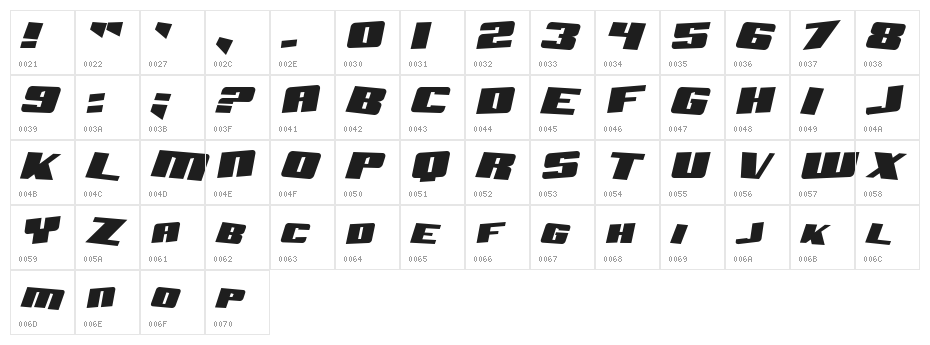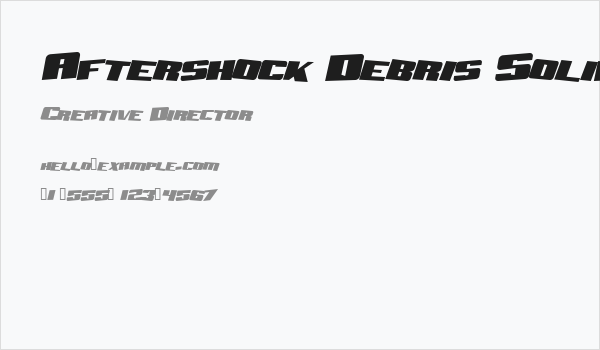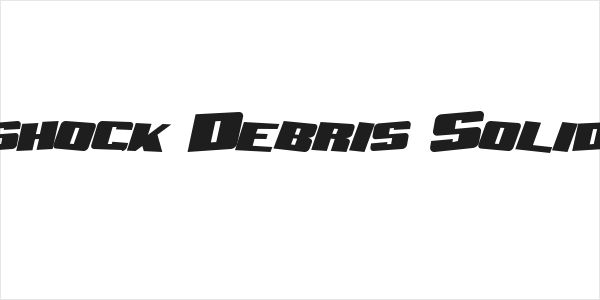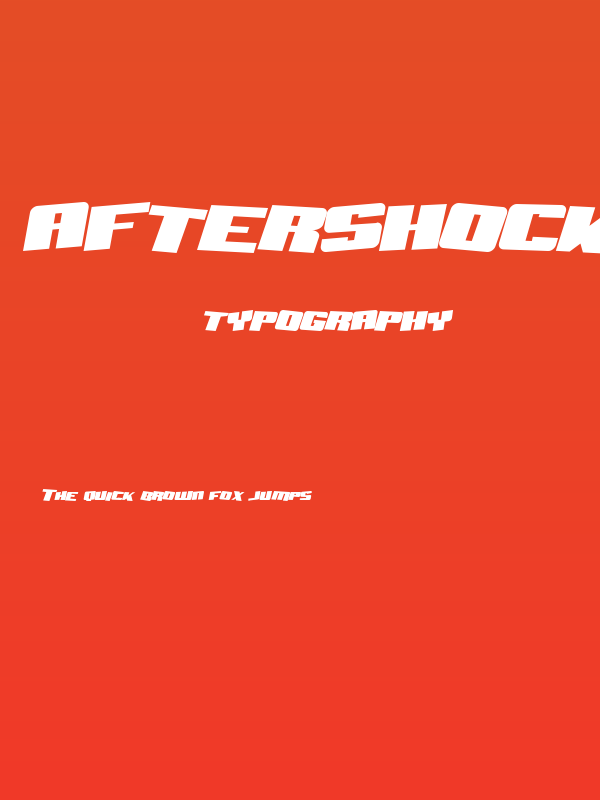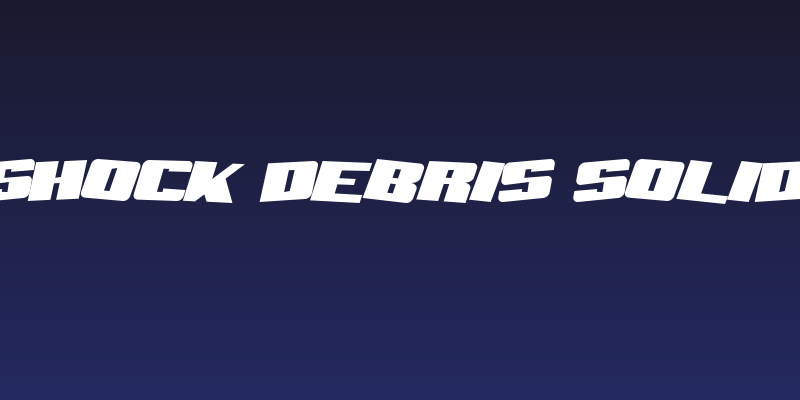
Aftershock Debris Solid Italic Font
Aftershock Debris Solid Italic Description
This font exhibits a bold and dynamic style with a solid, italicized appearance. The characters are angular and slightly slanted, giving a sense of movement and energy. The uppercase and lowercase letters maintain a consistent weight, contributing to a cohesive look. The numbers are equally bold, matching the style of the alphabet. Special characters are included, maintaining the same angular and solid design. This font is ideal for projects that require a strong, impactful presence.